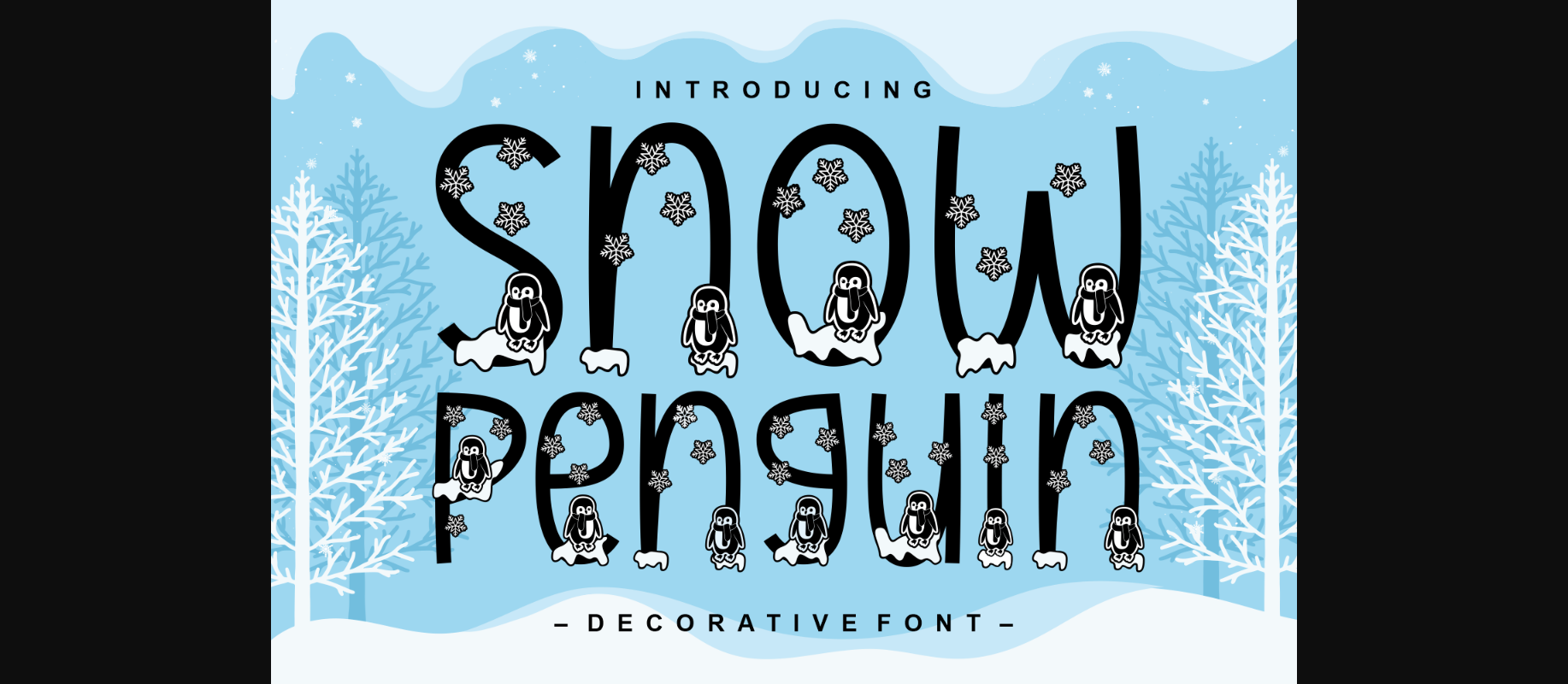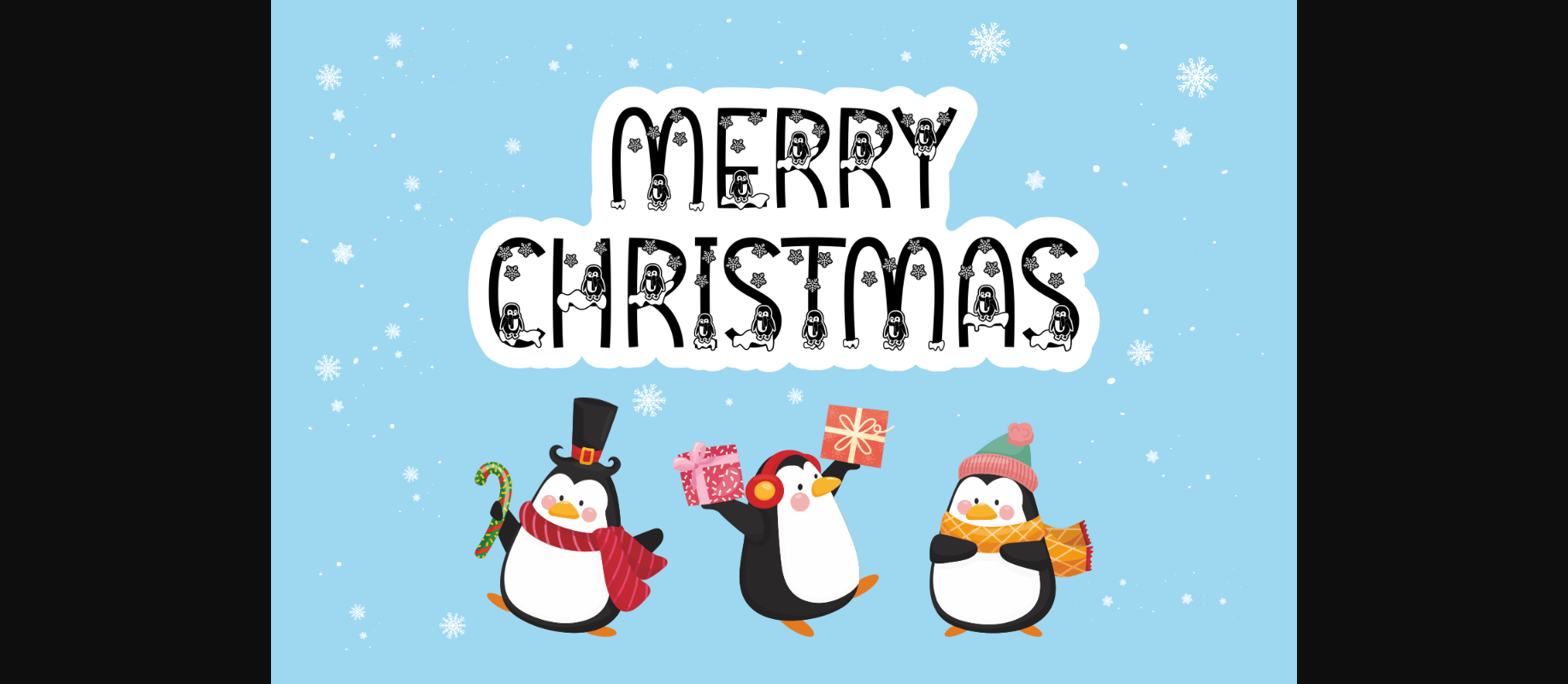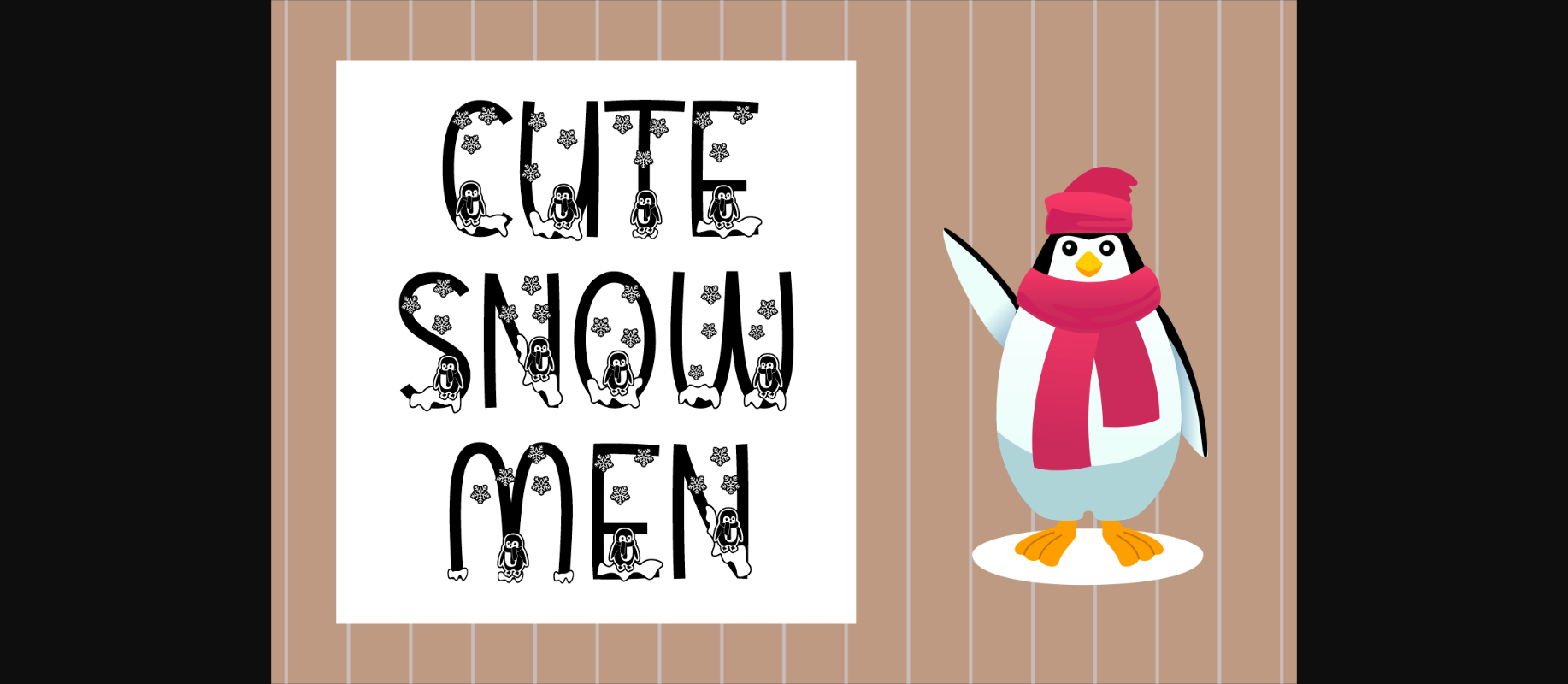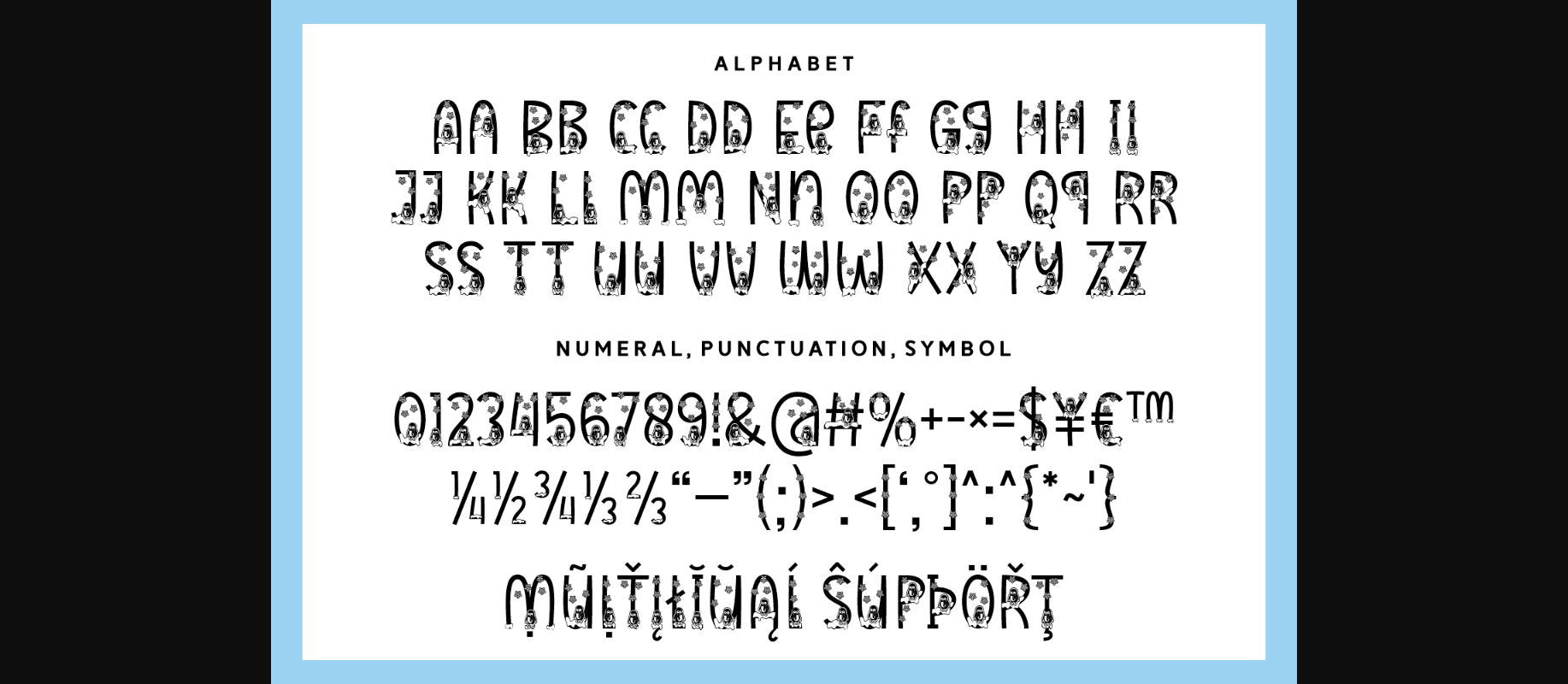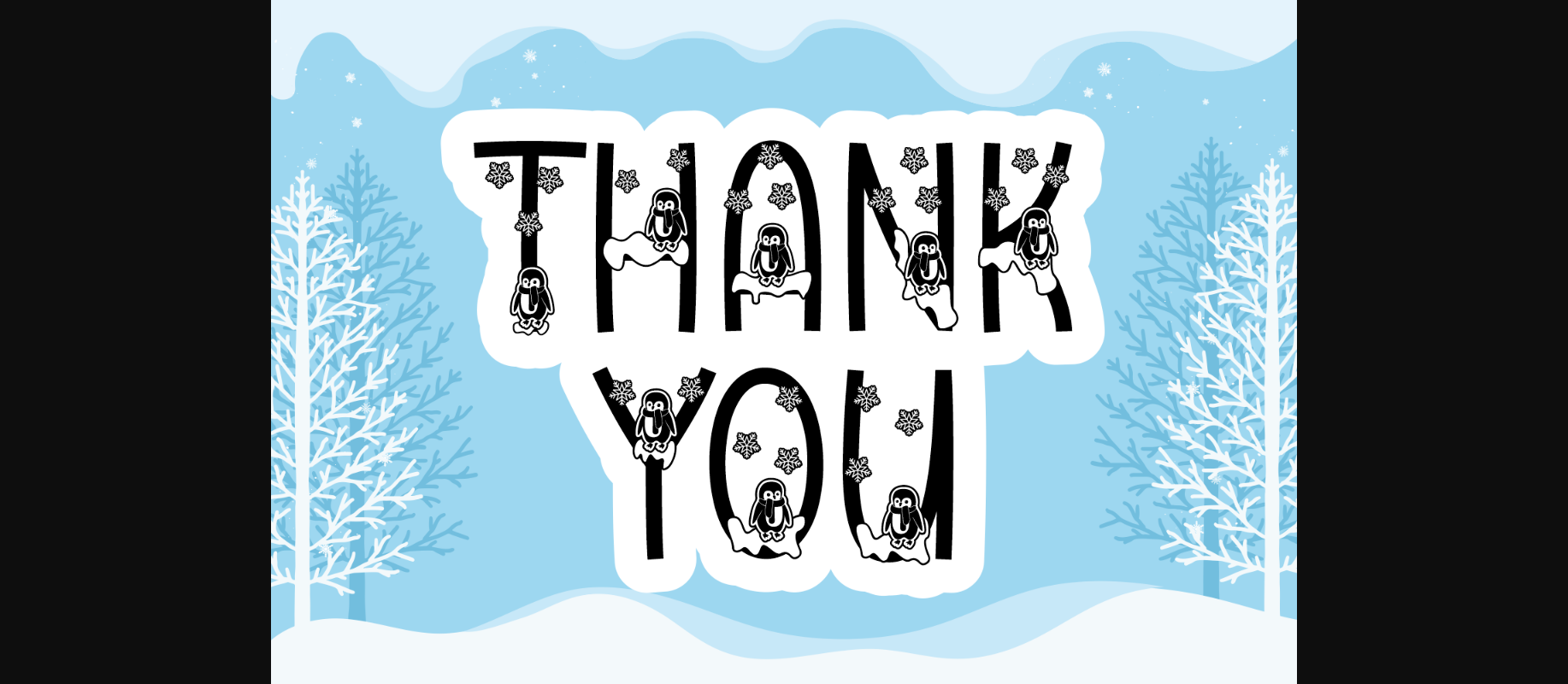
About Snow Penguin Font
Snow Penguin is a cute and playful decorative font. It will make the perfect match for any winter-related projects! Let its beautifully decorated characters embellish your next projects such as online games, stationery, school supplies font, poster, movie title, youtube covers, thumbnails, social media page covers, and many more.